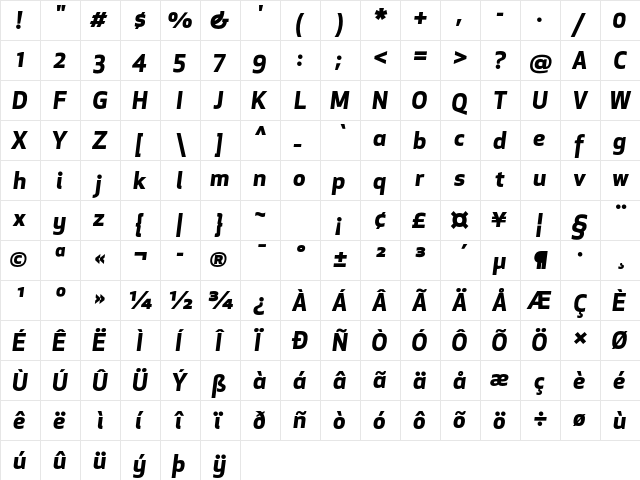
Apex New Bold Italic
| Foundry | Village Type & Design LLC (Thirstype) |
| Designer | chester (orignally designed with Rick Valicenti) |
Design Context for Apex New Typeface
Apex New offers clean, dependable letterforms without strong stylistic allegiance, making it a practical choice for designers who need flexibility. The dynamic lean of this cut emphasises speed and emphasis in any layout. The heavy weight commands attention and anchors typographic hierarchies.
Pro Tip: Use Apex New for emphasis, pull quotes, and subheadings where its slanted energy can add rhythm to the layout.